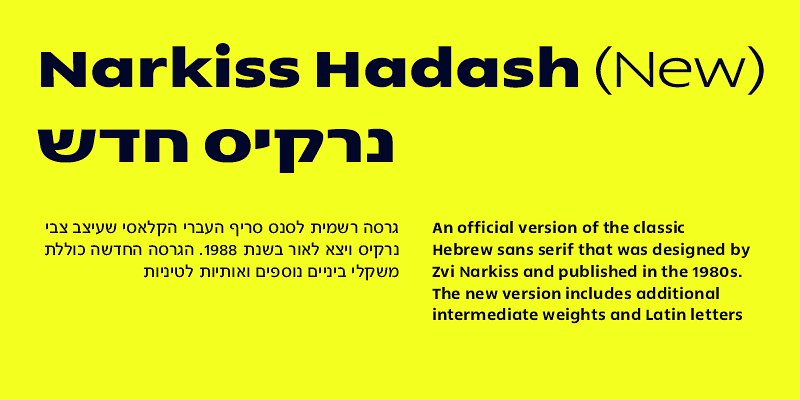
Narkiss Hadash Font Free Download is a refined Hebrew typeface that reinterprets the classic elegance of the original Narkiss design for the contemporary world. Blending tradition with modern clarity, Narkiss Hadash is ideal for editorial layouts, newspapers, books, branding, and digital content where legibility and cultural authenticity are essential.
With its clean lines, balanced spacing, and harmonious structure, this font delivers both aesthetic beauty and functional precision. Whether used for body text or headlines, Narkiss Hadash Font Free Download offers a professional, timeless look that resonates across print and screen media.
Its character set has been thoughtfully modernized, ensuring excellent readability while maintaining the graceful flow and subtle personality that have made Narkiss fonts so beloved. The typeface performs exceptionally well in multilingual environments, especially when used alongside Latin typefaces in global editorial or branding systems.
Narkiss Hadash is more than a font—it’s a continuation of a legacy, offering designers a reliable and elegant tool for creating visually rich, culturally rooted design work.